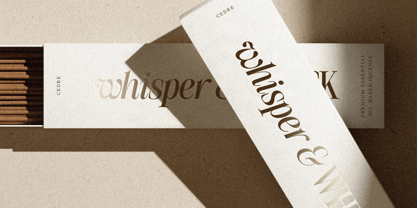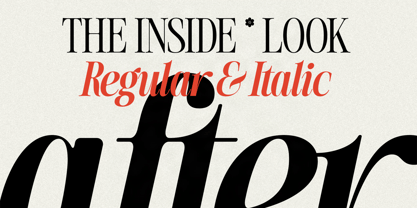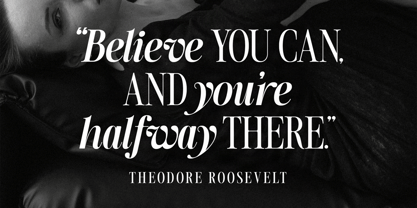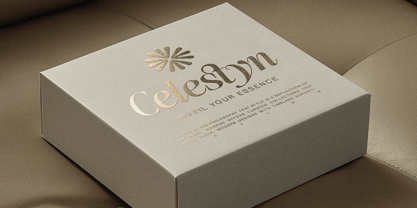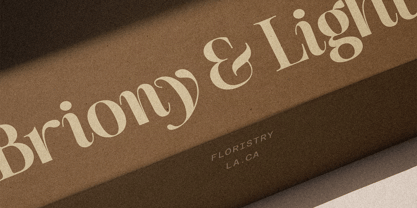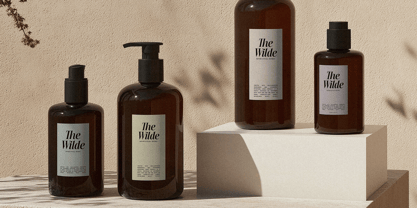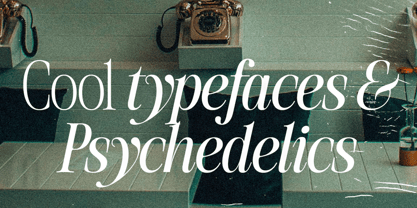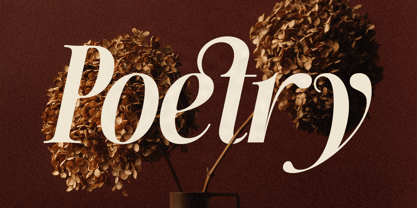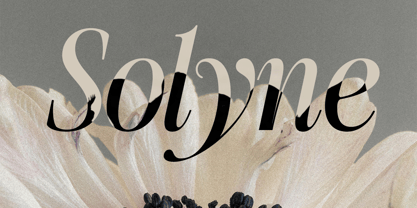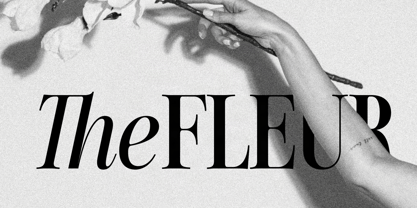
SLTF The Silver
by SilverStag
The SLTF The Silver Font Family was designed by SilverStag and published by SilverStag. SLTF The Silver contains 18 styles and family package options.
The Silver Editorial – A Nostalgic 18-Font Typeface—now more refined, versatile, and complete than ever before. This expanded version of one of my best-selling serif typefaces has been fully redrawn and upgraded into a comprehensive typographic system with 18 fonts in total (9 weights + italics). Designed for beauty and built for function.
As a font designer, I’m always searching for that perfect balance between the familiar and the unexpected. With The Silver Editorial, I believe I’ve found it. This fresh editorial serif draws inspiration from the iconic typefaces of the 1980s, yet exudes an undeniably modern spirit.
Remember the bold, expressive serifs that graced the pages of high-fashion magazines and cutting-edge publications in the 80s? The Silver Editorial channels that vintage charm while pushing the boundaries of contemporary design. I’ve taken the cool confidence of those typefaces, stripped away any excess, and sharpened them for the digital age.
Where It Shines
• Luxury branding & packaging - Whether you’re building a high-end skincare line or designing labels for artisanal products, The Silver Editorial brings timeless elegance to your visual identity. Its refined contrast and beautifully sculpted forms create instant trust and visual appeal.
• Editorial design - Perfect for magazines, books, lookbooks, and digital publications, this typeface thrives in editorial layouts. It balances dramatic presence with excellent readability, allowing you to create pages that feel both thoughtful and visually rich.
• Web typography - Its clean structure and strong rhythm make it a reliable choice for websites that need a touch of personality without compromising user experience. From headings to subheadings, it brings a stylish yet accessible energy to modern web design.
• Posters, portfolios & moodboards - Make a statement with eye-catching titles or pair it with expressive photography to create elegant, emotional storytelling. It’s the kind of font that gives your concepts that final, polished look — and makes people stop scrolling.
• Logo design - The Silver Editorial has just the right amount of flair for bespoke logo work. Its alternates and ligatures allow for custom-feeling logotypes that are both contemporary and timeless, helping your brand identity stand out in a sea of sameness.
This isn’t a font that plays by the rules. The Silver Editorial commands attention in headlines, lending a touch of sophistication to even the most audacious layouts. Yet, it transitions seamlessly into elegant body copy, ensuring readability without sacrificing character. Its real power, however, lies in its italics. These aren’t simply slanted – they’re a work of art on their own, adding dynamic energy to my designs.
Design transcends borders, and so does The Silver Editorial. With support for over 100 languages, this font empowers me to make a statement on the global stage. Whether I’m crafting multilingual publications or aiming for worldwide appeal, The Silver Editorial ensures my message is received loud and clear.
If you’re a designer seeking a serif that stands apart, The Silver Editorial is your new essential. Experience its unique blend of retro cool and modern refinement.